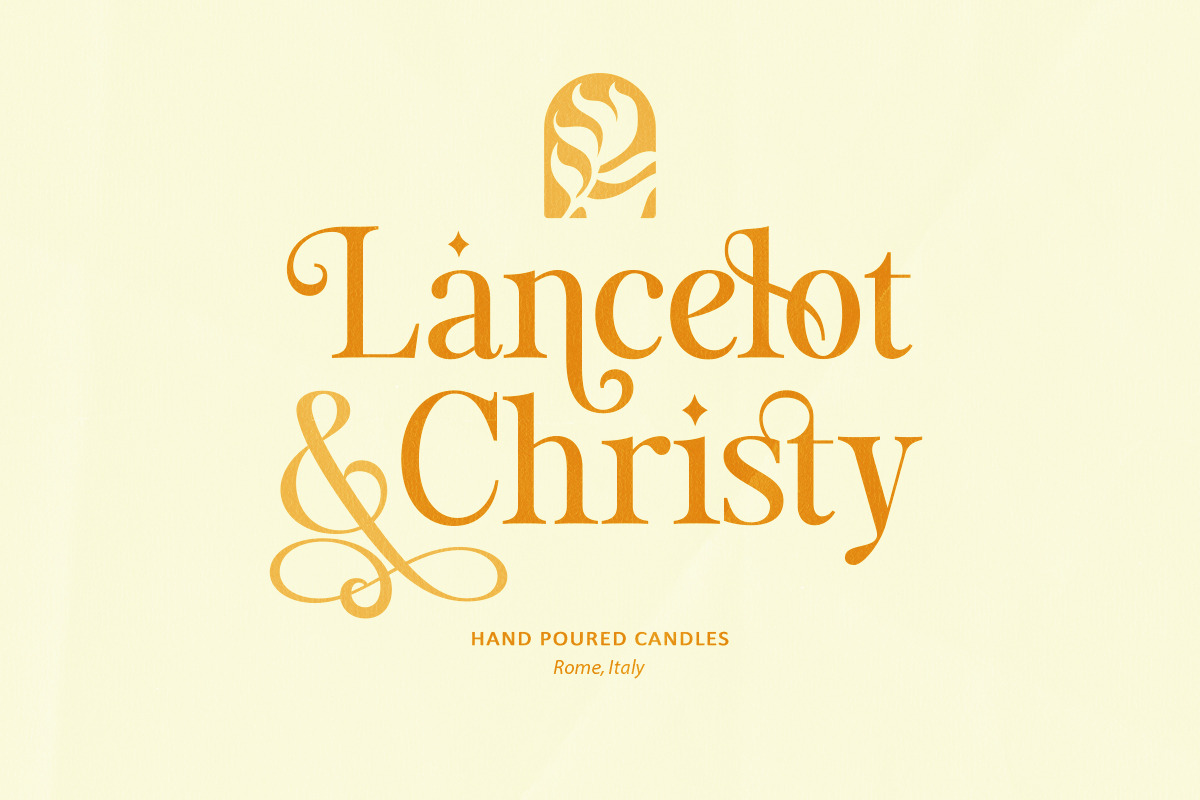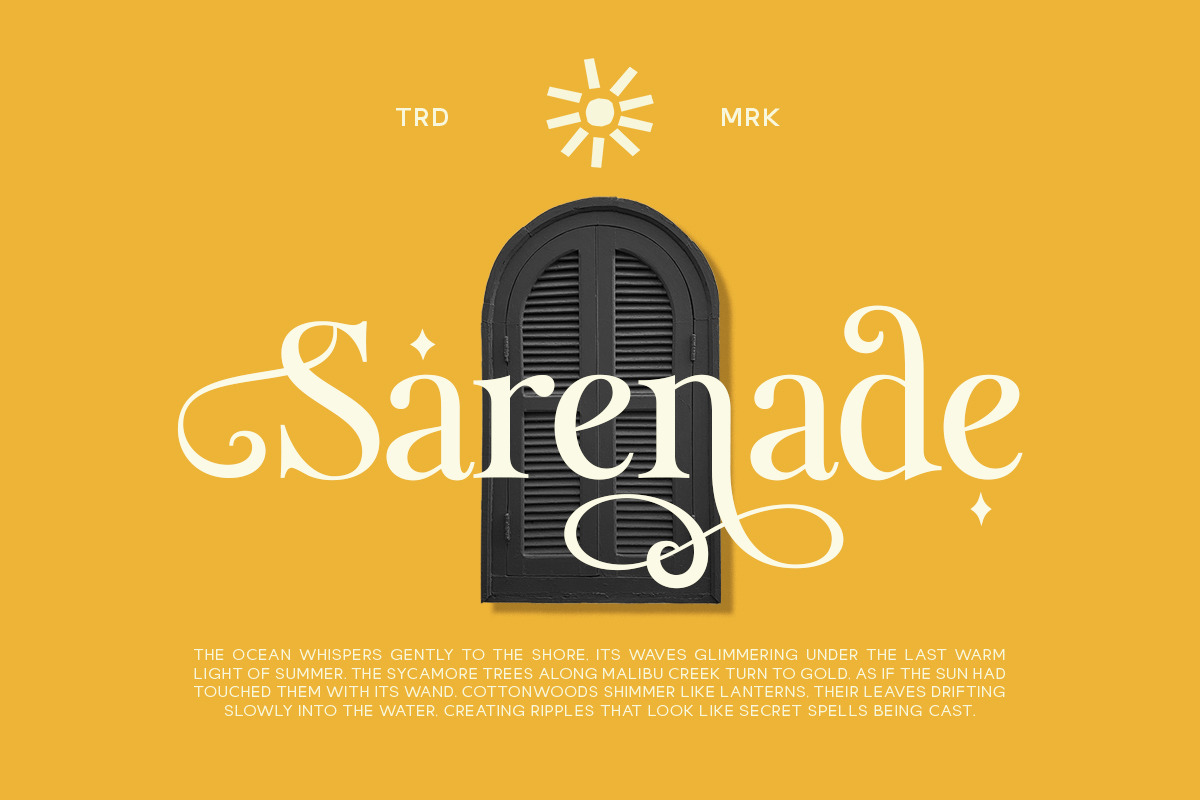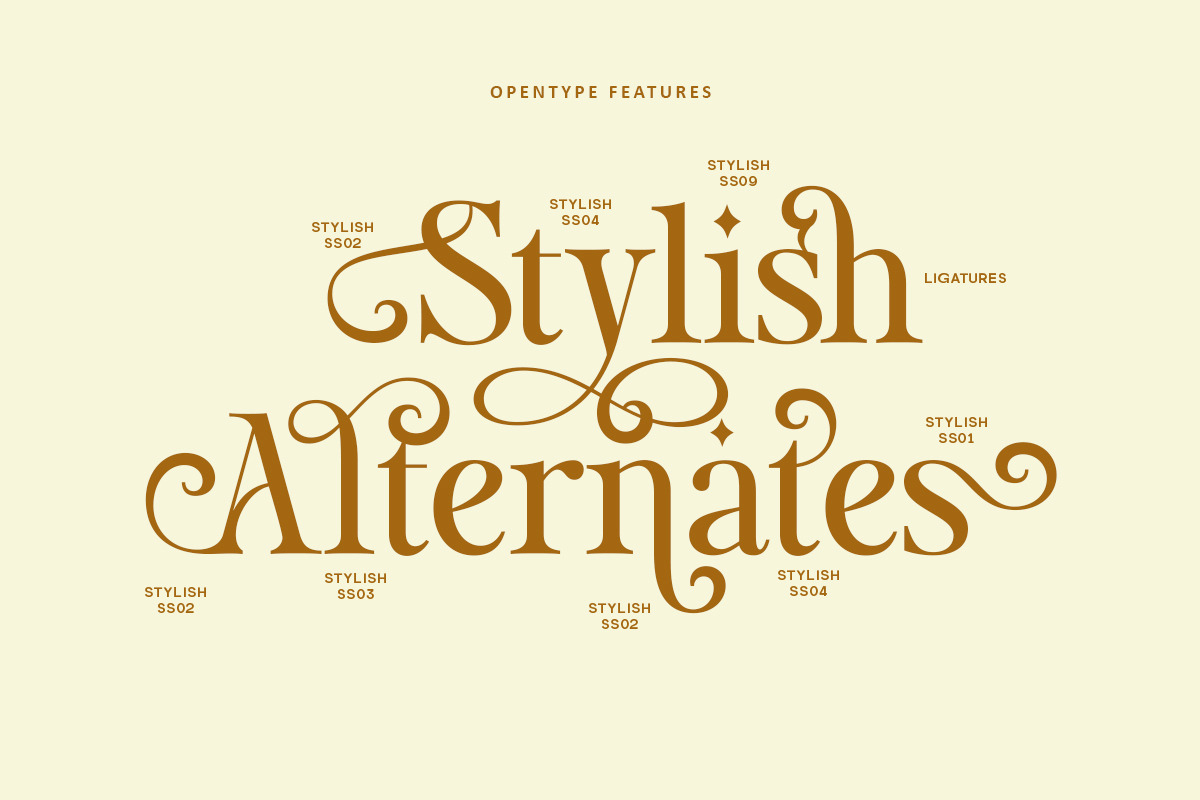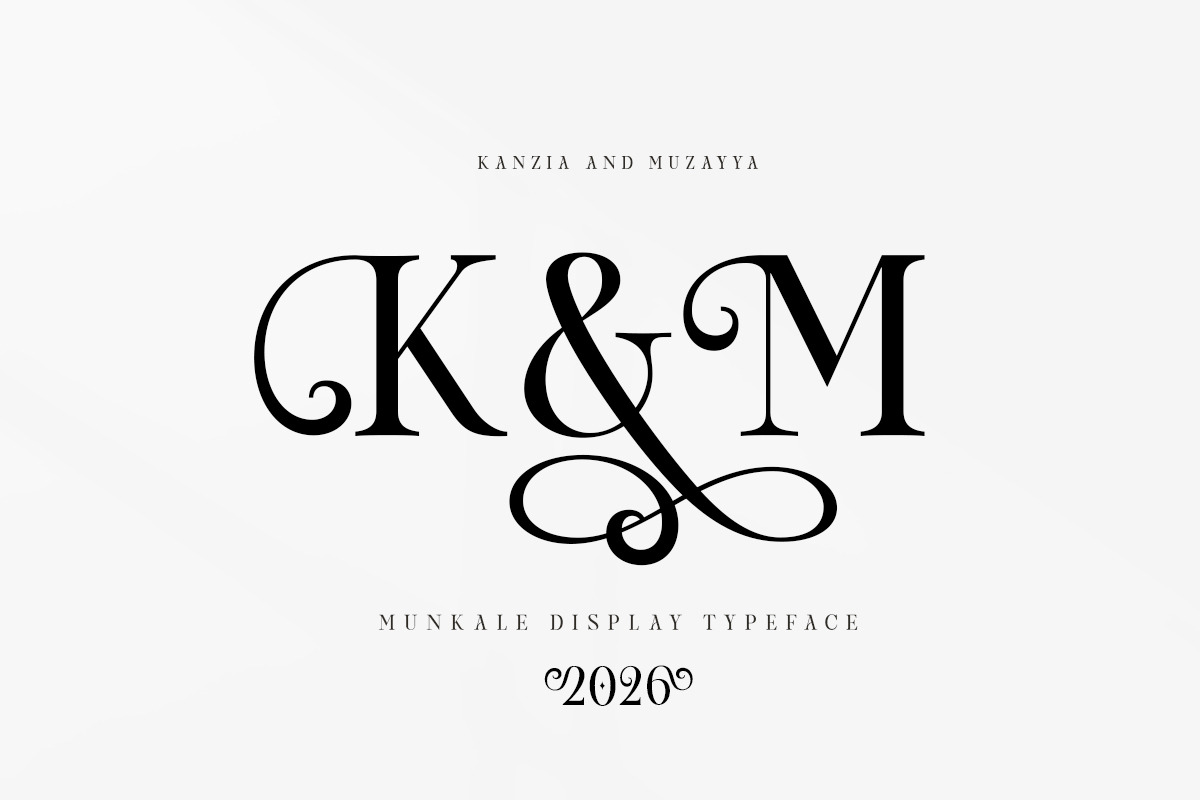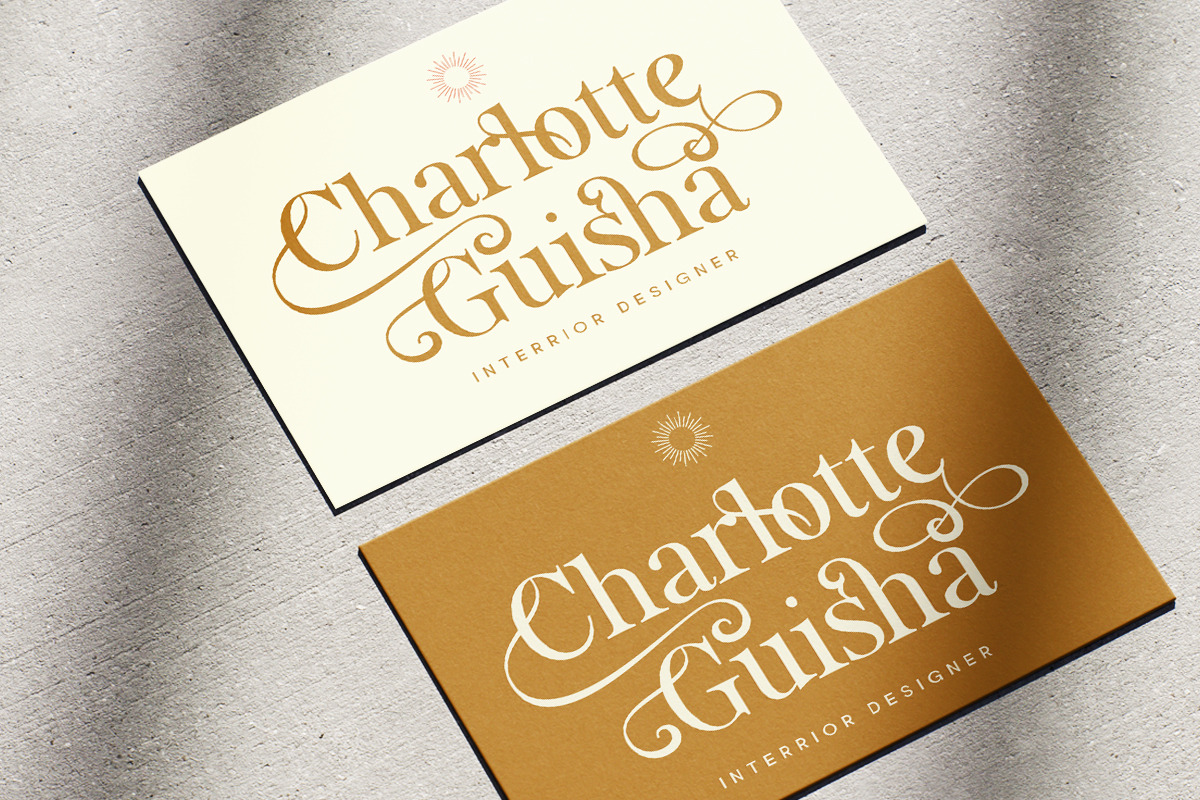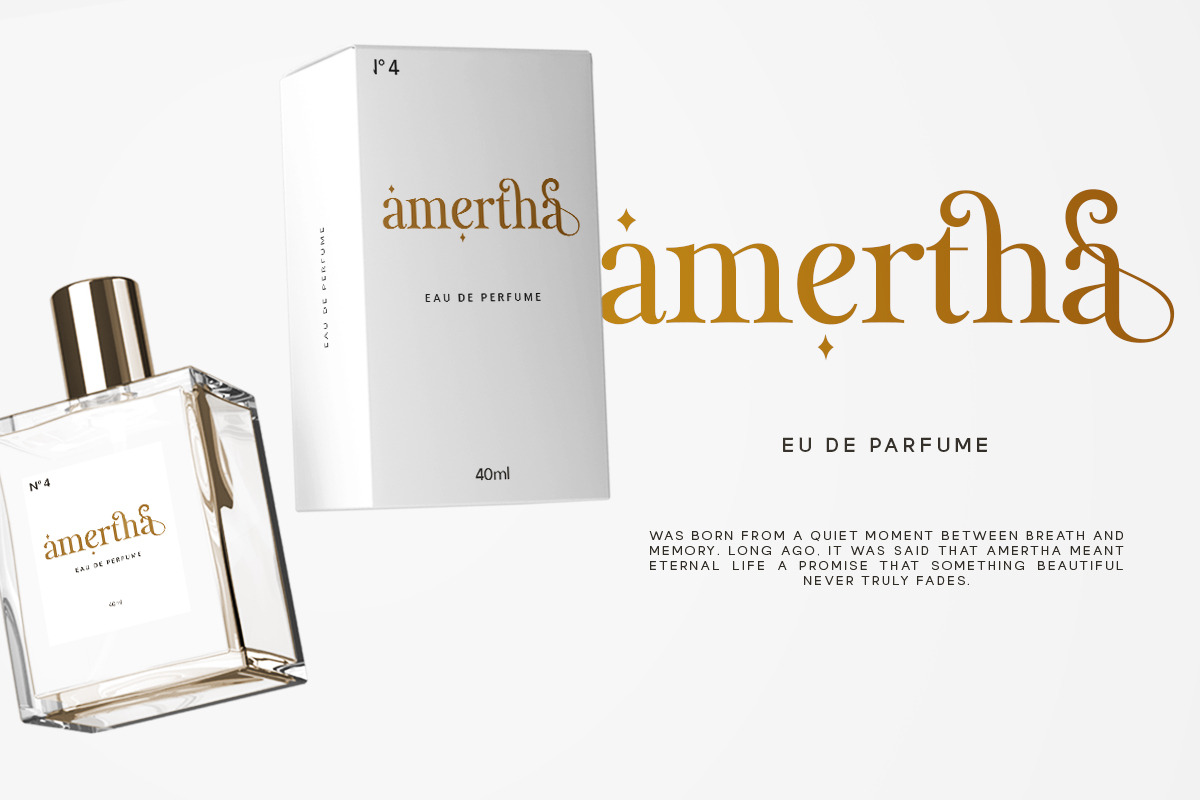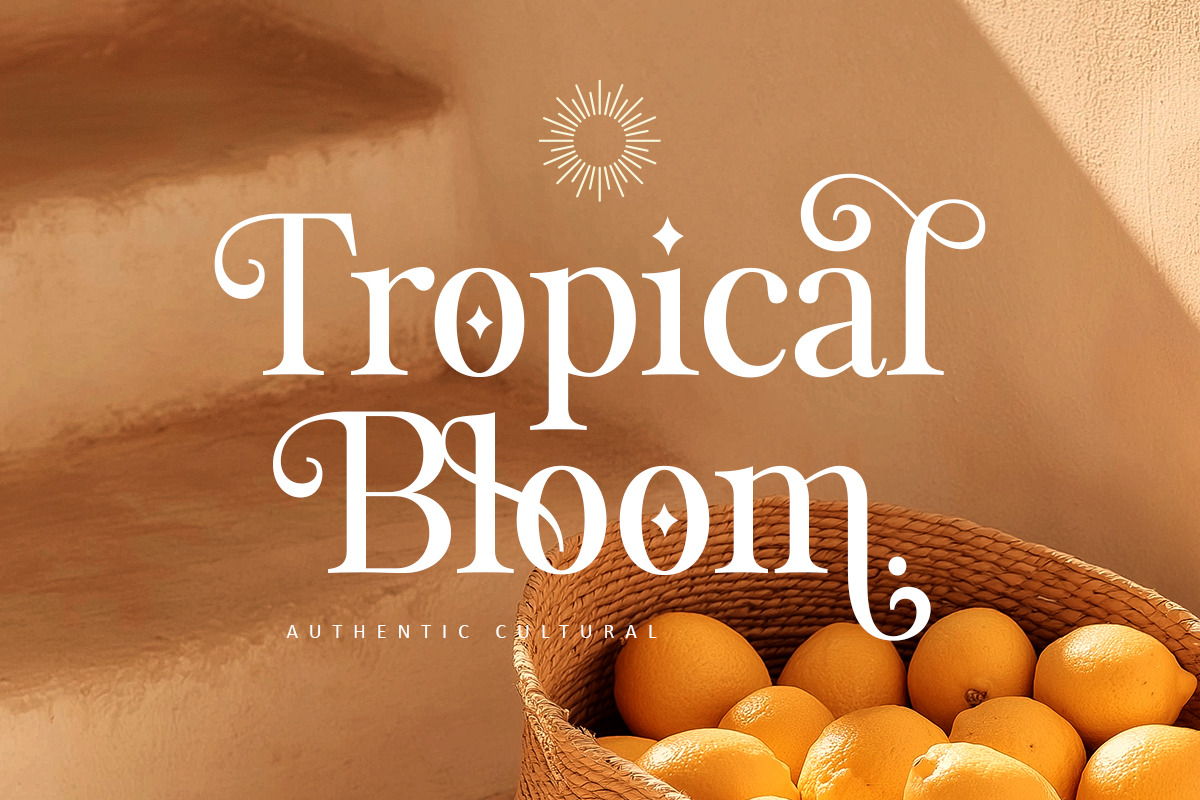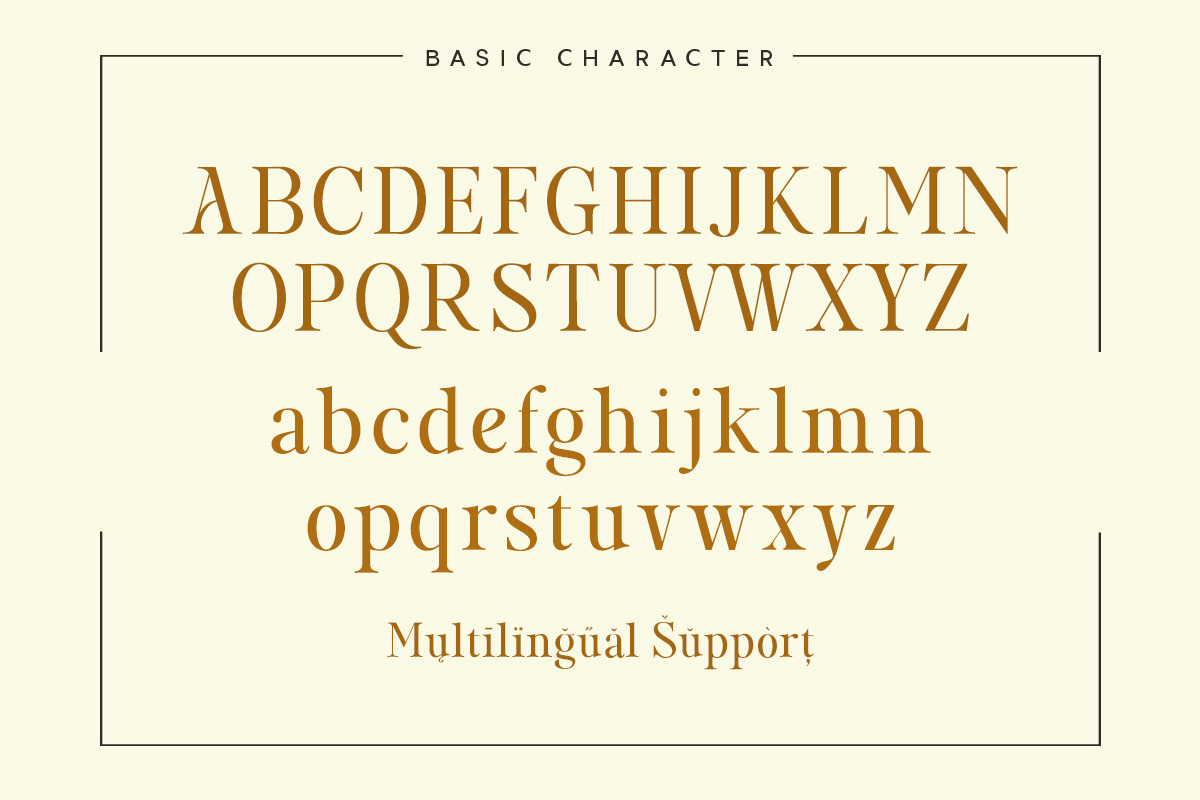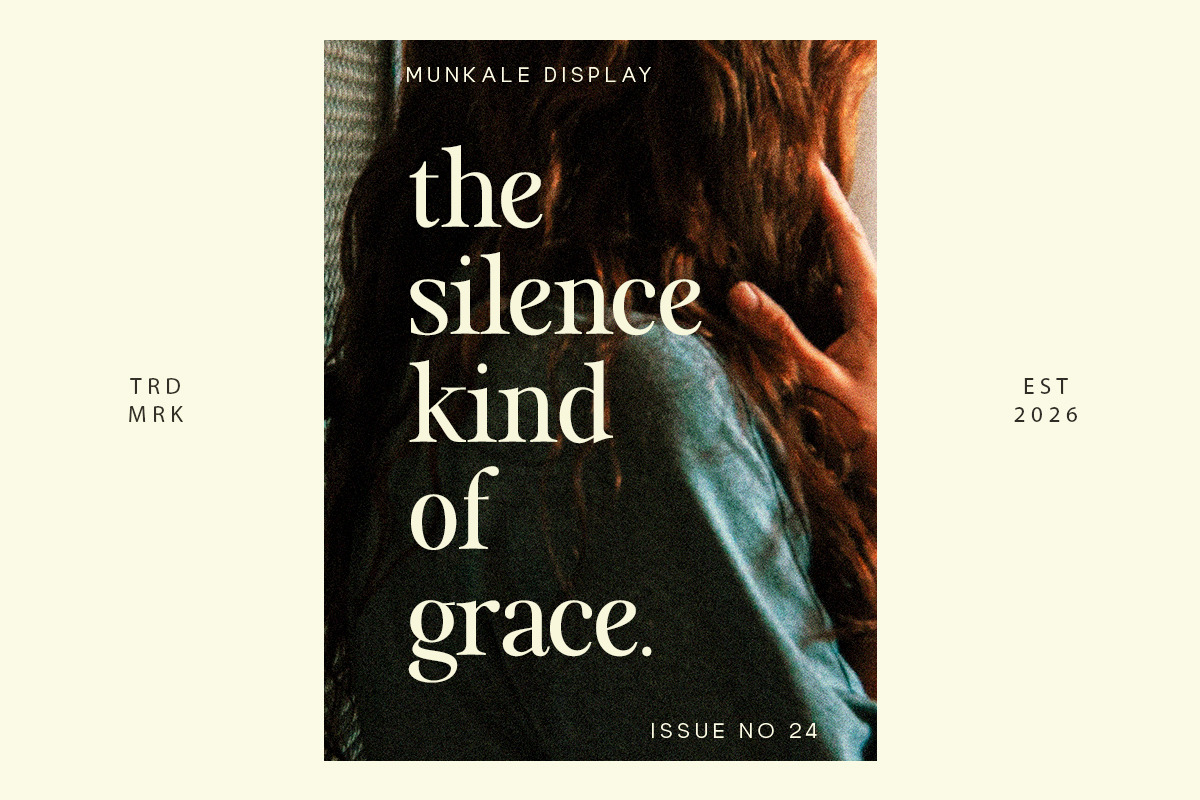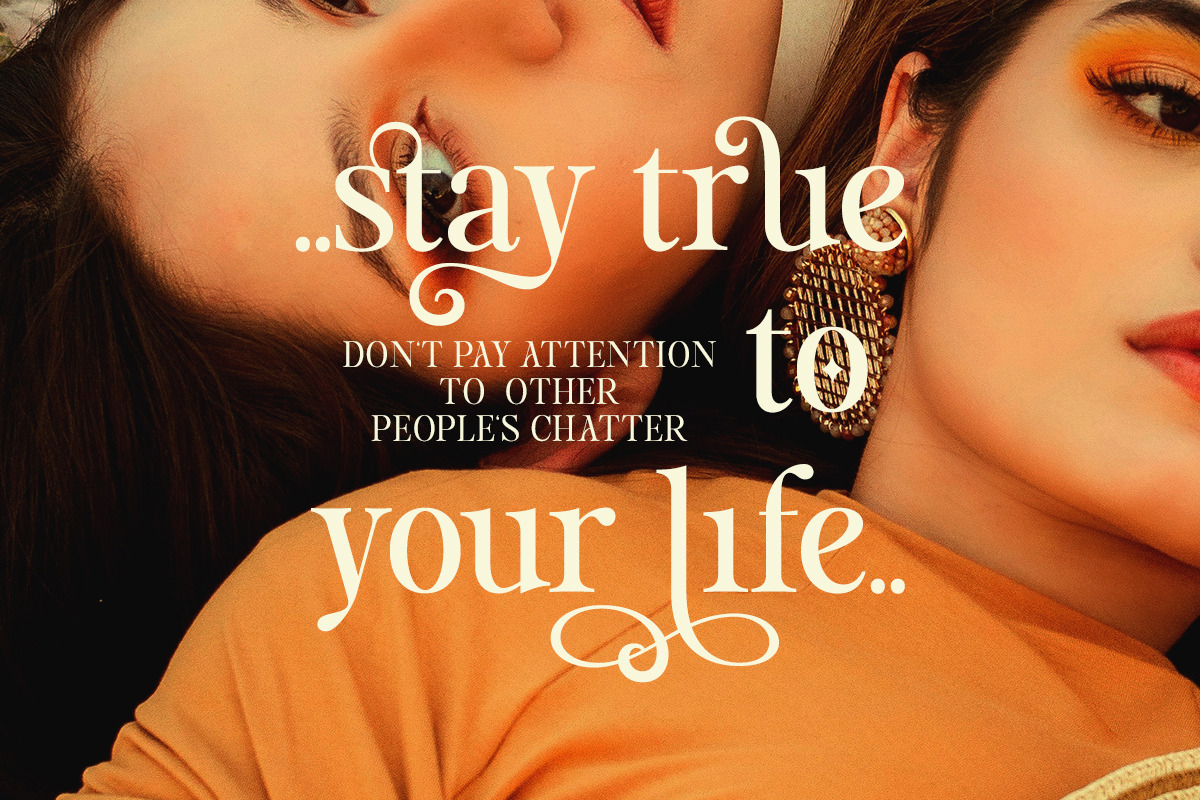
Munkale Display | Classy Serif
Munkale display is a very versatile font. perfect for magazine images, to wedding invitations, to branding, poster design, and more. Adding beautiful ligatures and alternatives to make your typography truly unique.
- Stylistic Alternates & Ligatures